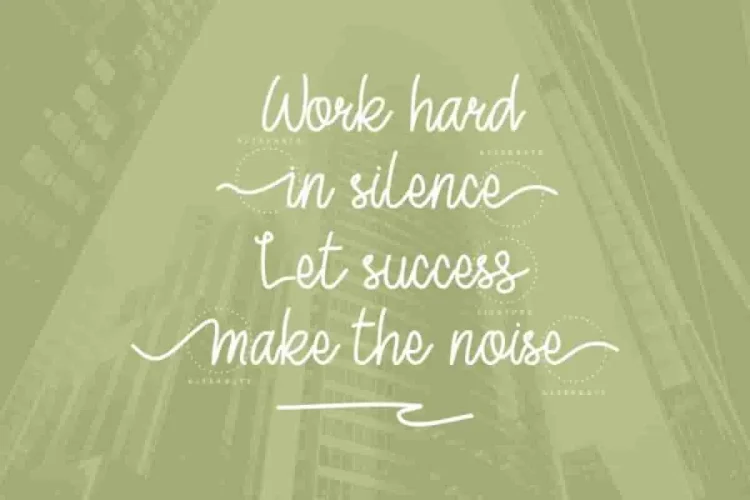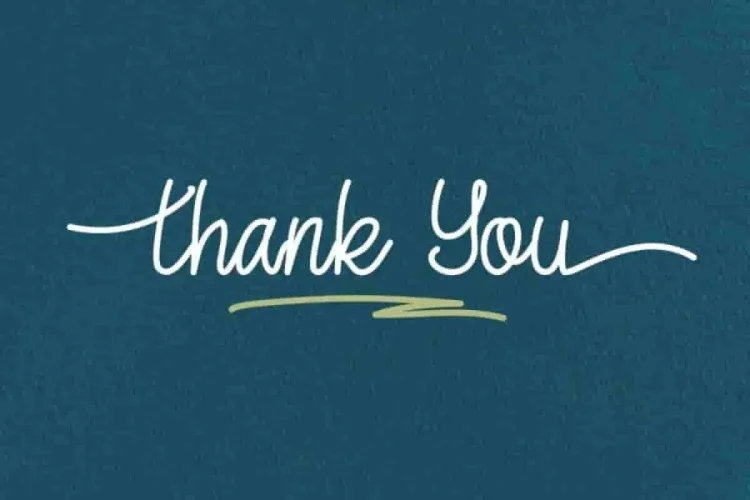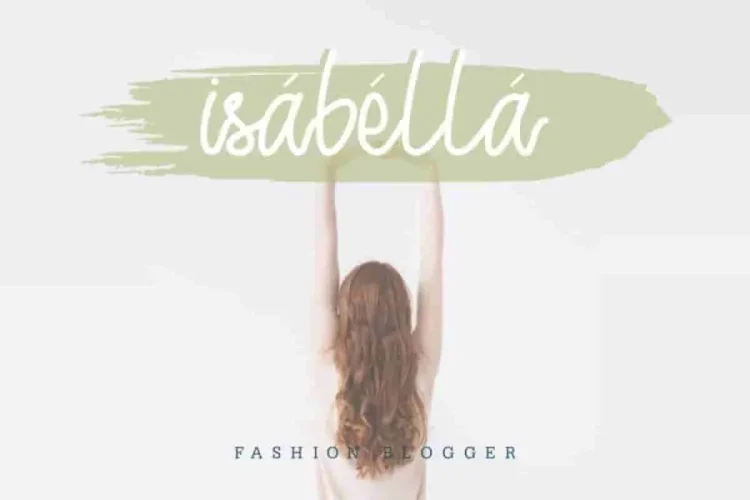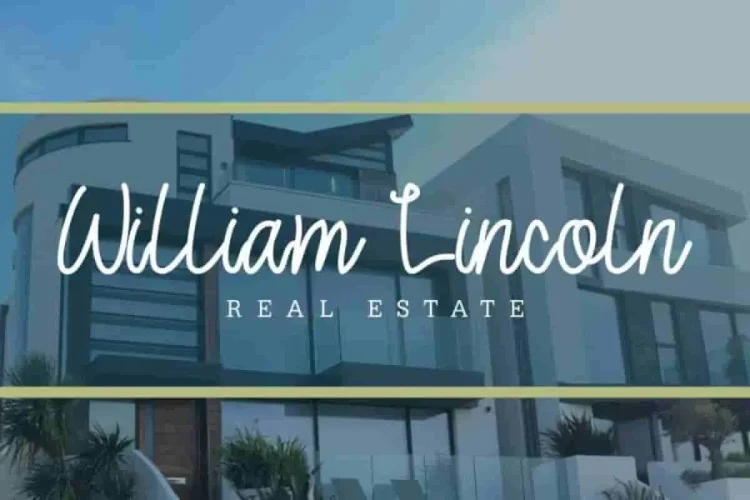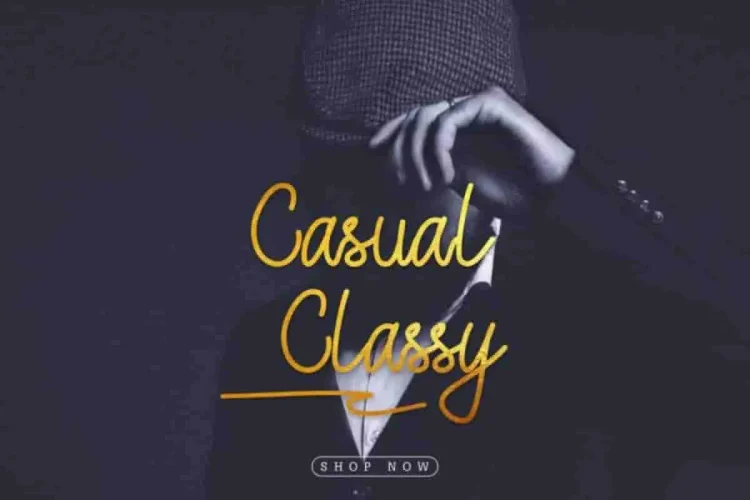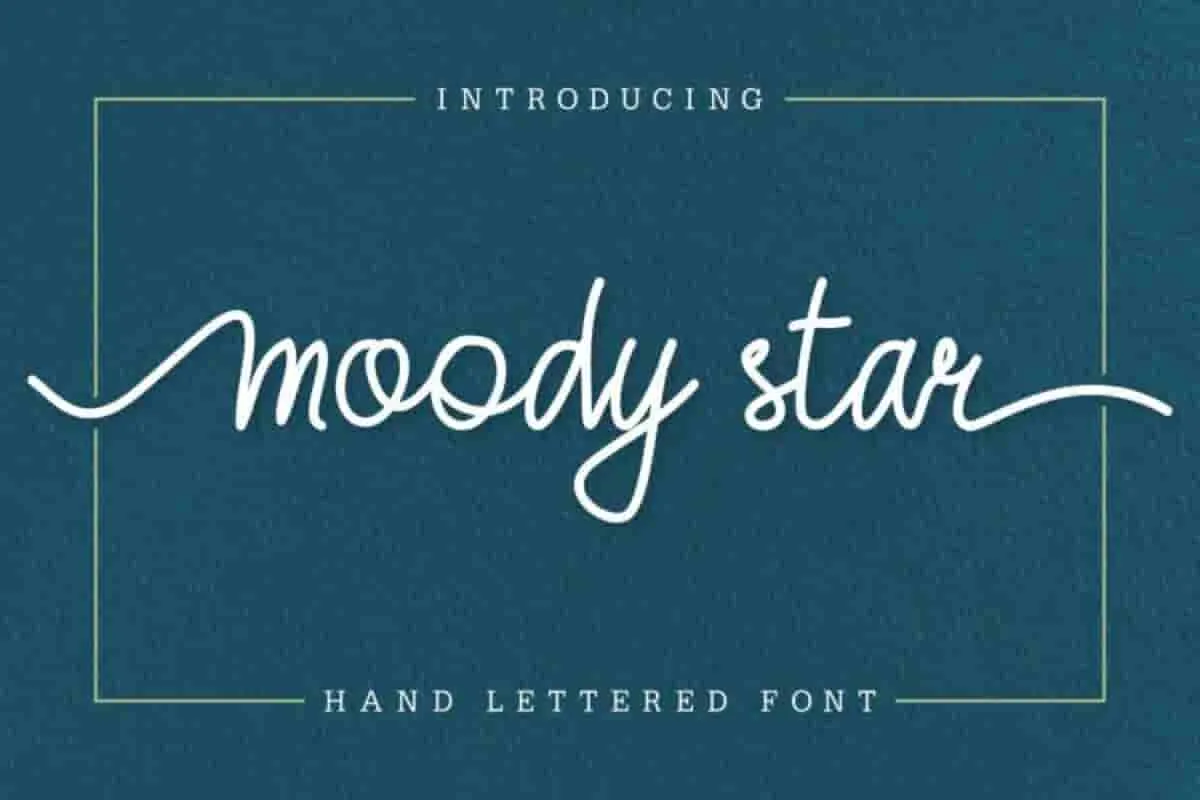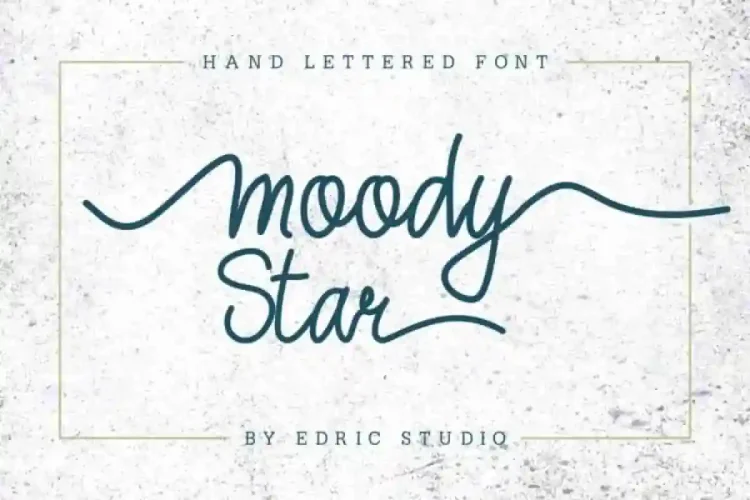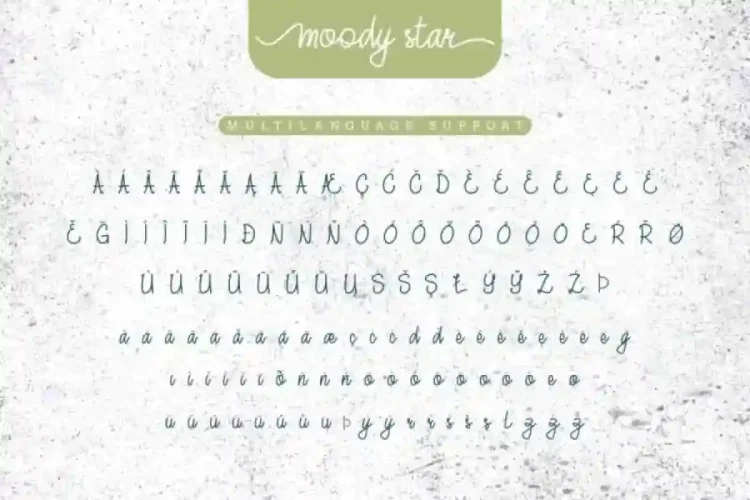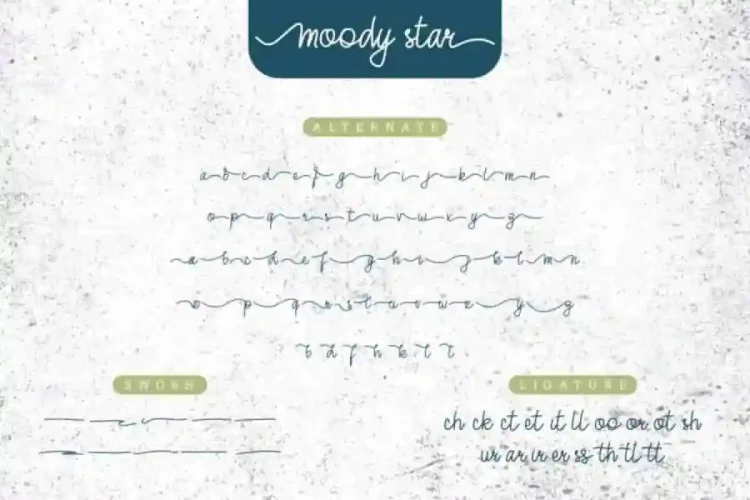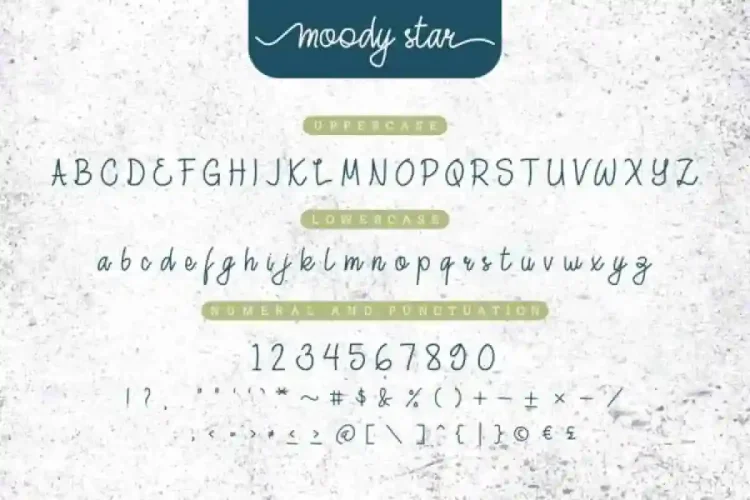
Moody Star Script Handwriting Font
In fact, this is a handwriting font, handcrafted from our Studio here in, Indonesia. Behind the style, the artists/designers of this beautiful typeface is Nouval.
Not only that, Moody Star Script is an exclusive Handwriting script typeface with manual pen style. Moreover, this font has a stunning characters set, perfectly managed with well spaced and kerning. As a result, the theme style of this font is elegant, vintage, stylish, sophisticated and classic brush calligraphic style. Therefore, you won’t find a font like Moody Star Script anywhere else.
Moody Star Script will be great for any projects including : branding, logo, stationery, business card, signage, flyer, brochure etc. Consequently, almost all industries will match this typeface : wedding, events, real estate, architect, law firm, florist, gardening, makeup artist, travel, hotel, musician etc.
And surely, Moody Star has also multi-language characters.